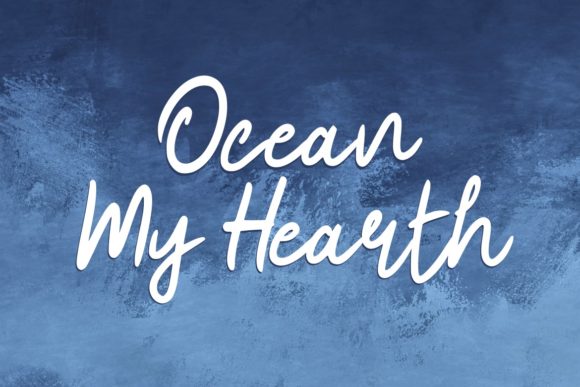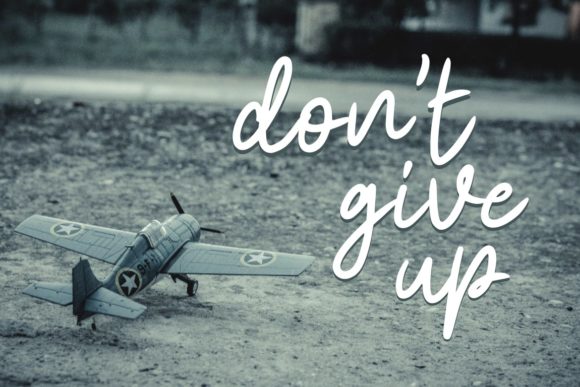
Introduction to Realism Font
Remember that moment when you’re brainstorming ideas for a creative project, and suddenly, a spark of inspiration hits you? It’s like the entire world has come alive, and your imagination is racing with possibilities. For designers, those ‘aha’ moments are what make all the hard work worth it. And, when you’re working on a project that requires a unique touch, that’s exactly where the Realism Font comes in.
This quirky handwritten font is more than just a design resource – it’s a game-changer. With its high-quality, free download, and transparent background, you can add a personal touch to your designs without any hassle. Whether you’re working on logos, posters, or even t-shirt & mug designs, the Realism Font is the perfect choice to get your creative juices flowing.
Key Features of Realism Font
- High-quality typography with a focus on realistic texture and shading, perfect for creative projects.
- Unique characteristics include subtle imperfections and texture, adding a touch of realism to your design.
Honest Review: Realism Font
As a designer, I’m always on the lookout for high-quality design resources that can elevate my creative projects. I recently stumbled upon the Realism Font, and I’m excited to share my honest review.
What works well: ✨ The Realism Font is incredibly detailed and realistic, making it perfect for projects that require a high level of authenticity. The font is available for free download, which is a huge plus for designers who are working on a budget. The transparent background is also a nice touch, allowing for seamless integration into any design.
- Highly realistic and detailed
However, I do have a few limitations to mention: ⚠️ The font is only available in a limited range of styles, which may not be suitable for every design project. Additionally, the font may not be compatible with all design software.
Overall, I’m impressed with the Realism Font and would definitely recommend it for designers who are looking for a high-quality design resource. Just be aware of the limitations and make sure it’s a good fit for your project.
The Realism Font is a high-quality design resource ideal for creative projects that require a realistic and professional touch. This free download is perfect for designers and non-designers alike, offering a wide range of applications.
Tips for Getting the Most Out of Realism Font
To get the most out of the Realism Font, use it with a transparent background to achieve a seamless design. Experiment with different font sizes and styles to create a visually appealing design.
The Realism Font is ideal for various projects, including: